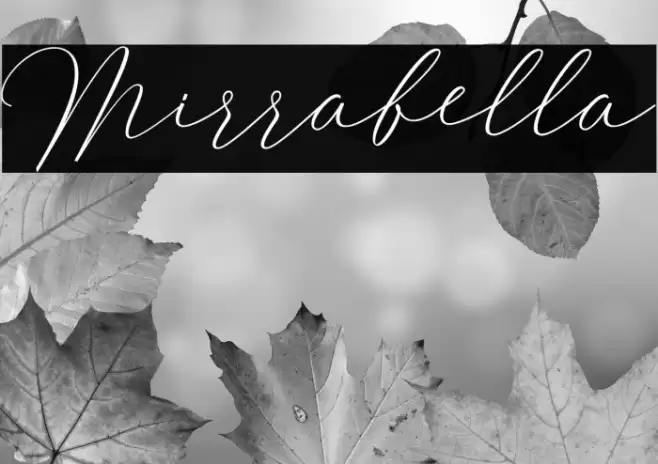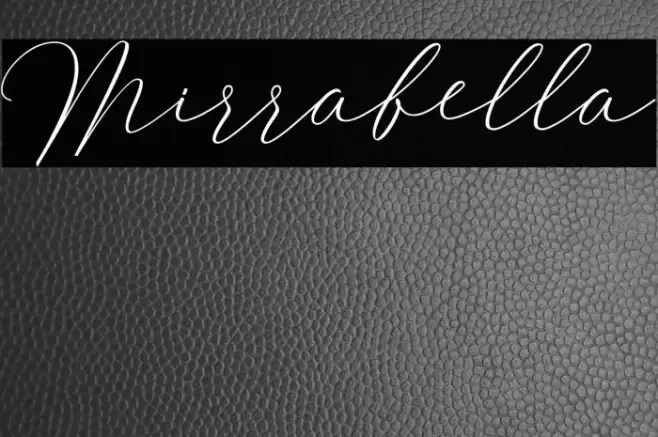
Mirrabella Font
Mirrabella Description
This elegant script font features flowing, interconnected letters that exude a sense of sophistication and grace. The uppercase letters are characterized by their sweeping curves and delicate loops, while the lowercase letters maintain a consistent fluidity, enhancing the overall aesthetic. The numerals are stylishly crafted, complementing the alphabet with their graceful arcs and lines. Special characters are thoughtfully designed, maintaining the font's cohesive style. This font is ideal for projects that require a touch of elegance and refinement.
An elegant script font with flowing, interconnected letters and graceful curves from Regular fonts.
- Proposed Projects: Wedding invitations, luxury branding, elegant stationery, and high-end product packaging.
- Overall Style: Elegant
- Use Case: Logos, Invitations, Branding